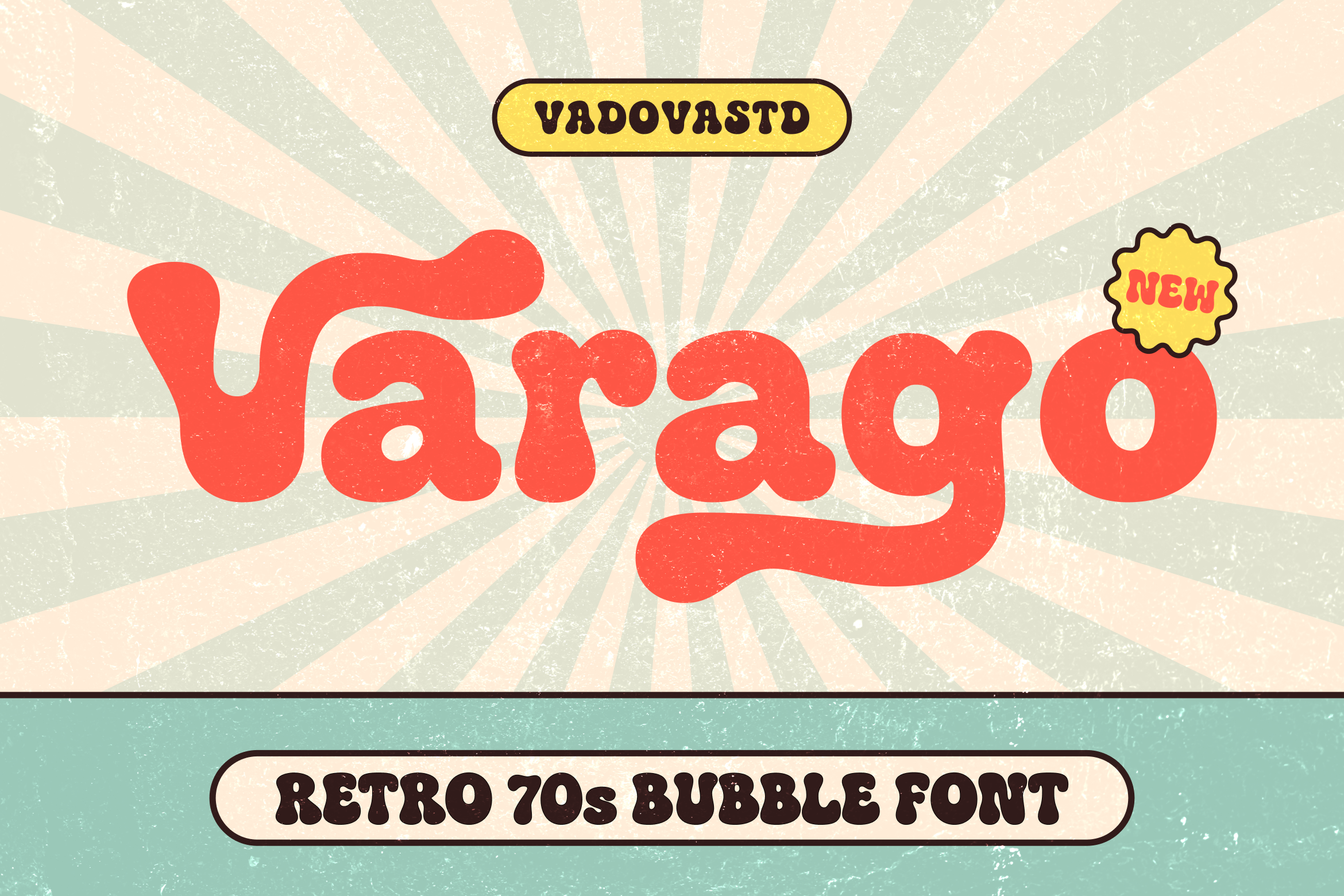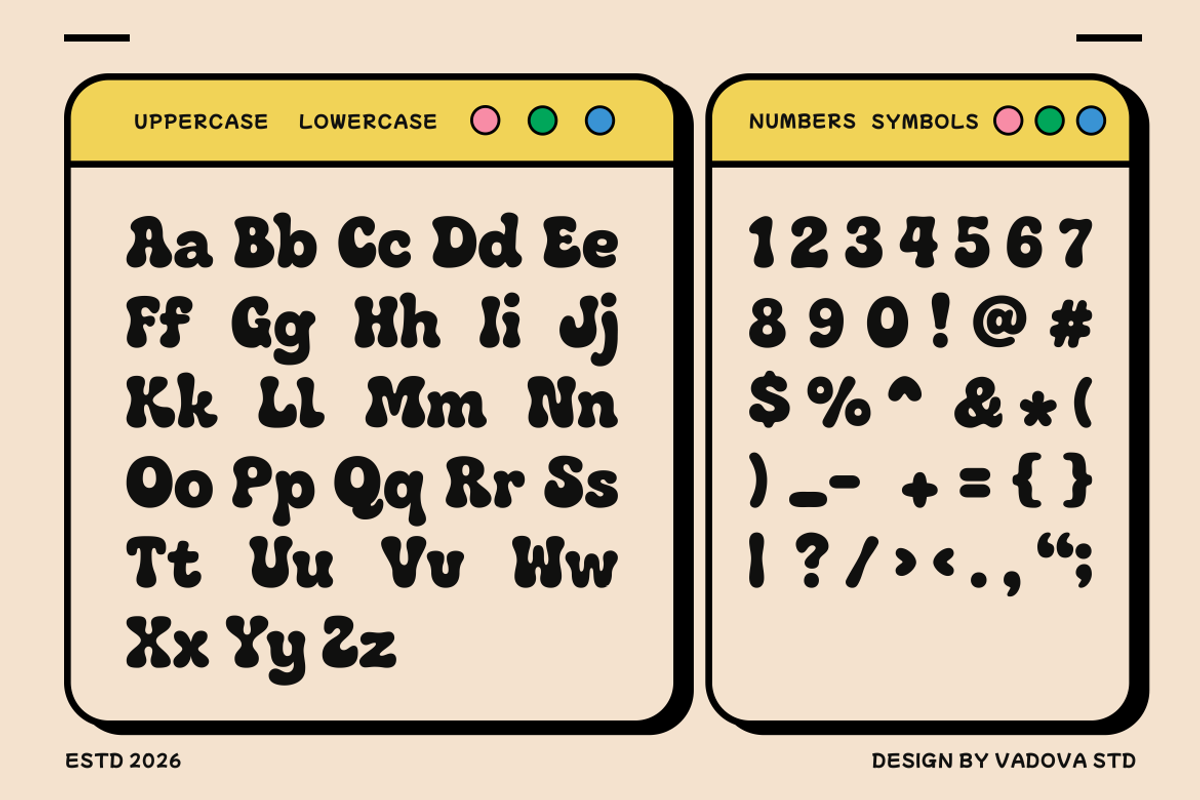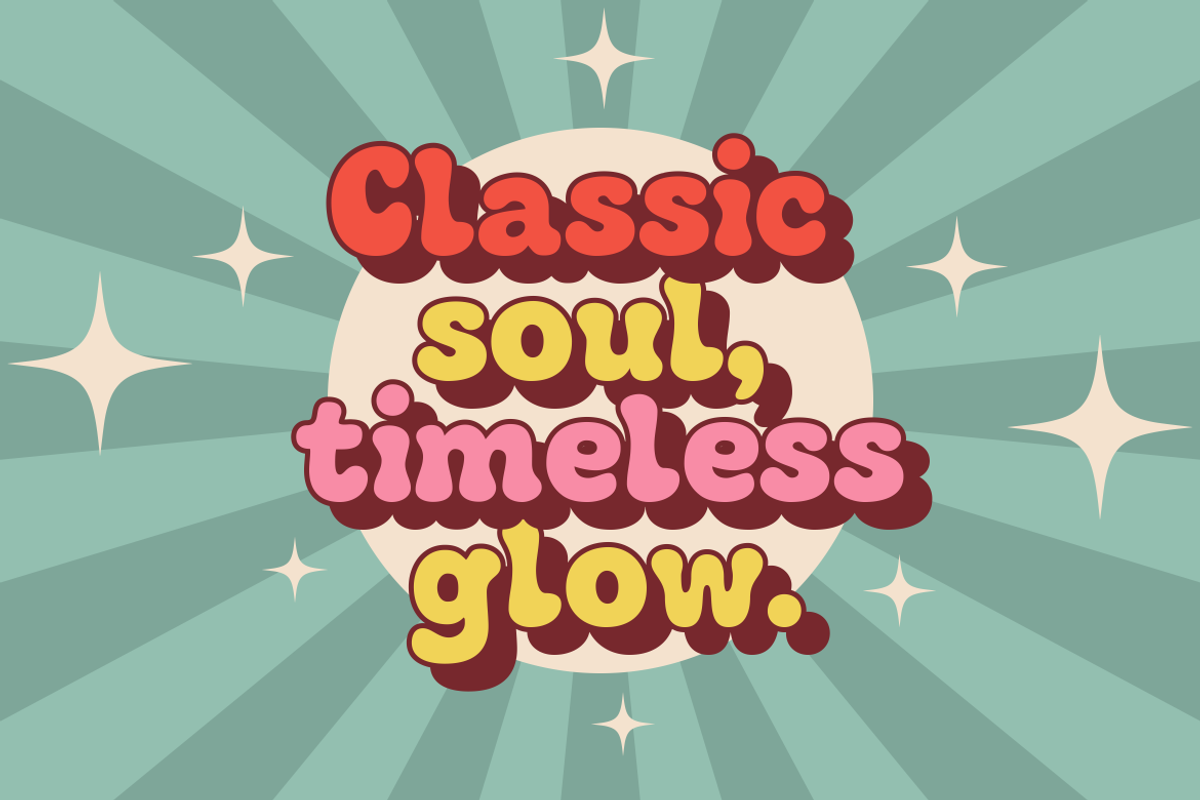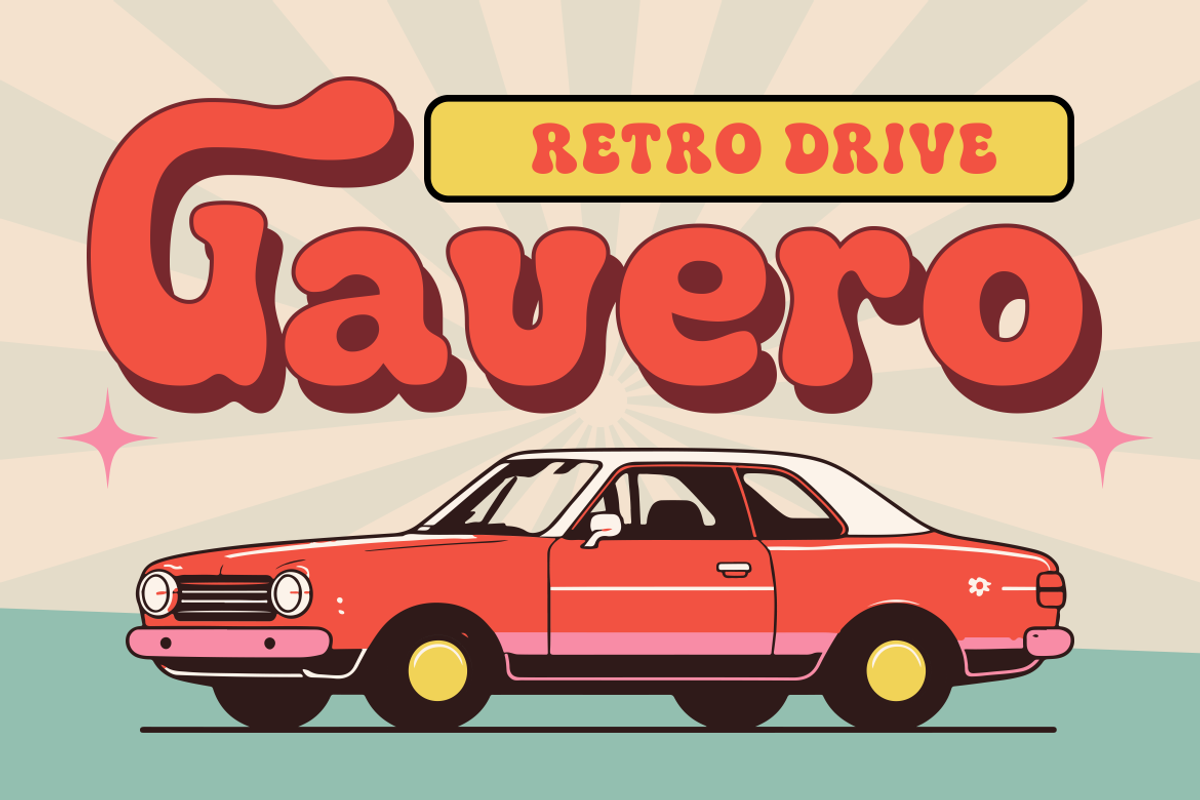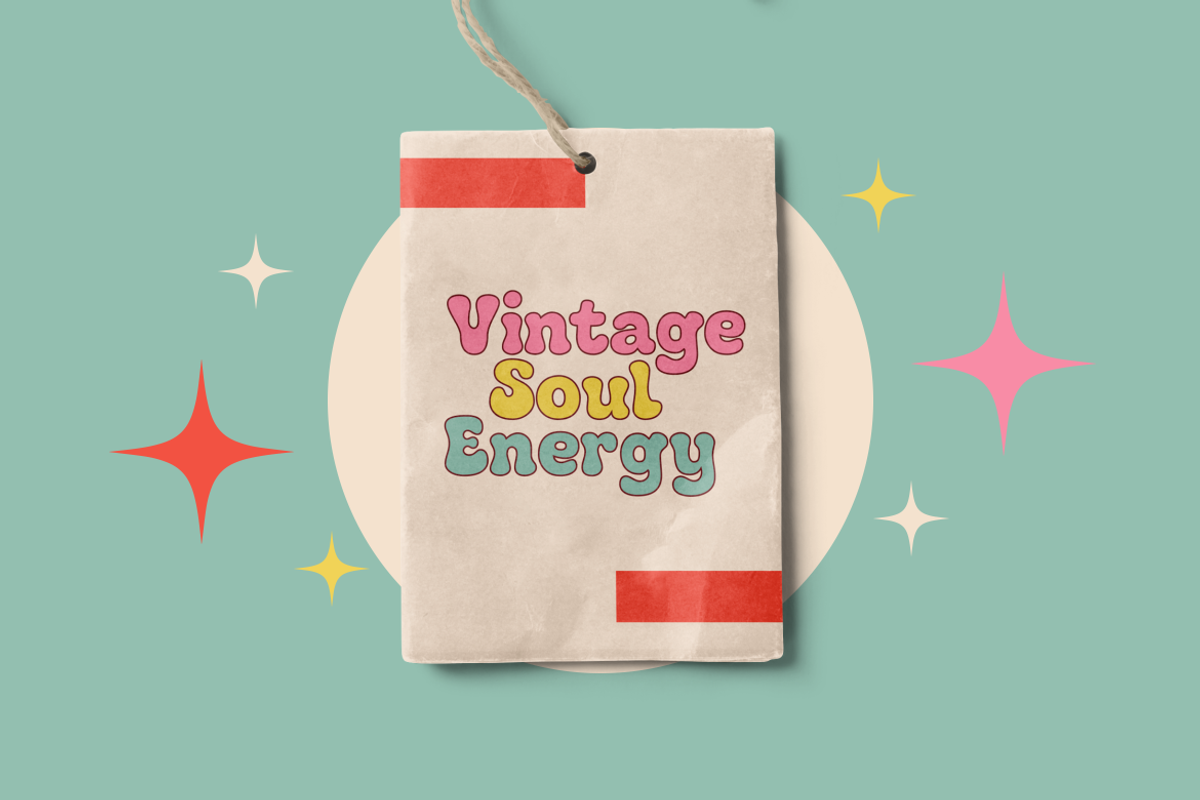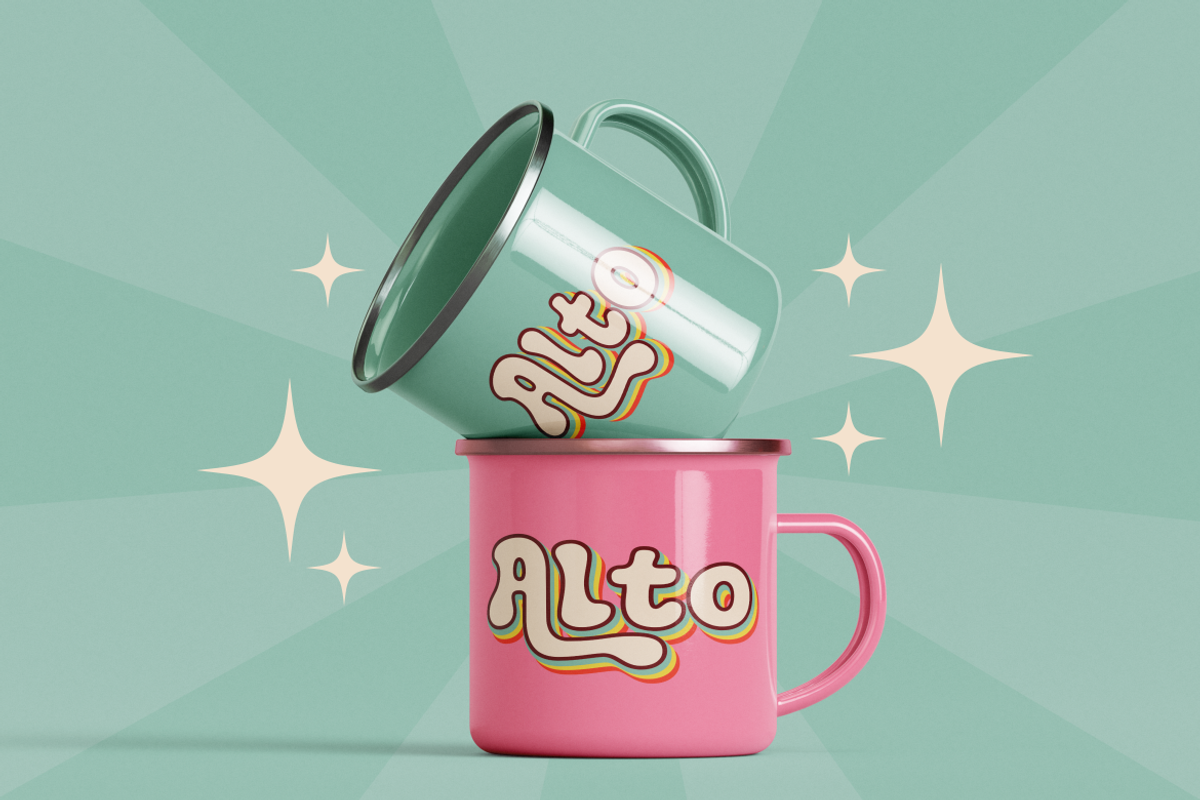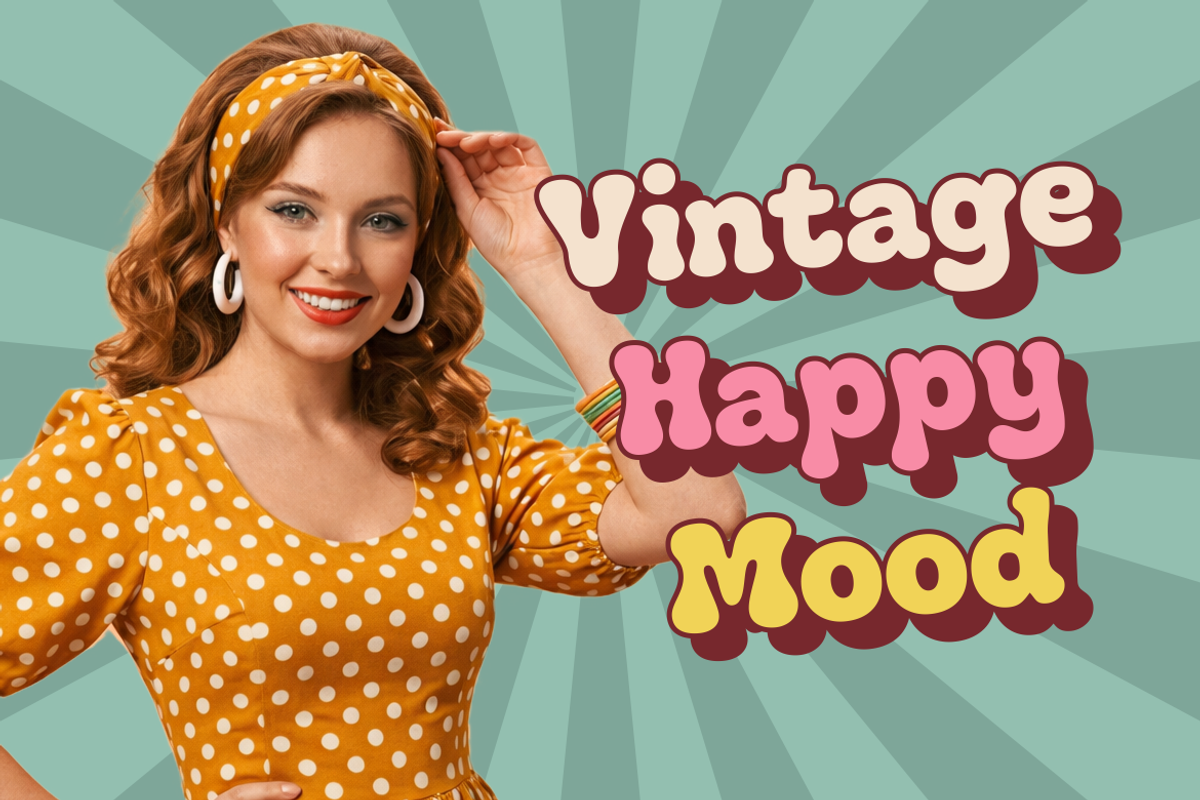
Varago Retro 70's Bubble Font
Varago is a retro groovy bubble display font inspired by the bold and playful typography of the 1970s. Its thick rounded letterforms, soft curves, and exaggerated shapes create a lively visual rhythm that immediately captures the nostalgic spirit of vintage design. The bubbly character structure gives the font a strong personality while maintaining readability for impactful display typography.
Varago is highly relevant for retro-themed design projects that require bold and expressive typography. It works well for vintage branding, music posters, retro packaging, festival graphics, apparel designs, social media visuals, album covers, and creative marketing materials that embrace nostalgic 70s aesthetics and playful visual storytelling.
- Bold retro bubble letterforms inspired by 70s groovy typography
- Thick rounded strokes creating a playful and expressive character
- Soft inflated curves that enhance the vintage bubbly appearance
- Organic letter shapes with smooth flowing contours
- Spacious proportions designed for strong visual impact in display use
- Retro-inspired brand identities that embrace bold vintage character
- Music posters, festival graphics, and groovy event promotions
- Product packaging and merchandise with a playful nostalgic vibe
- Album covers, apparel graphics, and creative streetwear designs
- Social media visuals and advertising campaigns with eye-catching retro typography